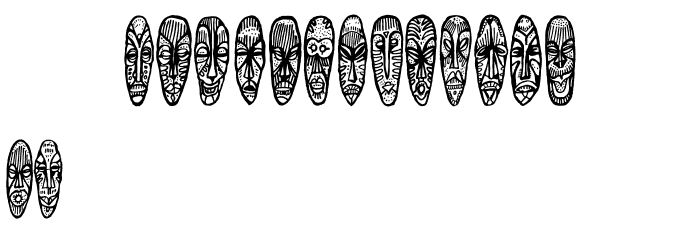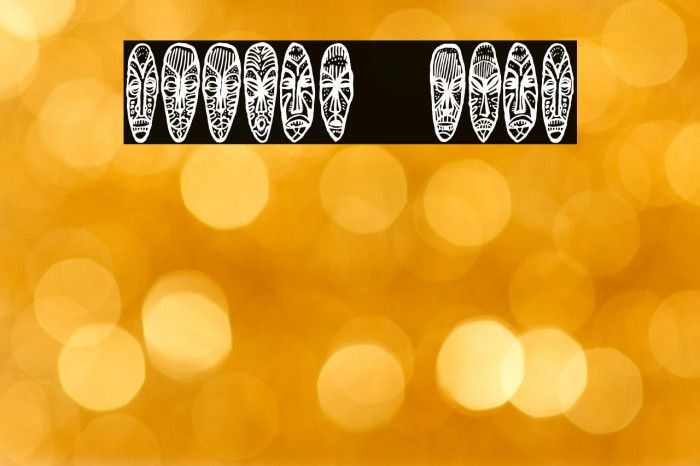
Abbild Regular Font
This font is a highly decorative and artistic representation, featuring intricate tribal mask designs for each character. Each letter is uniquely crafted with detailed patterns, giving it a distinct and cultural aesthetic. The characters are bold and visually striking, making them stand out with their elaborate designs. The font exudes a sense of mystery and tradition, reminiscent of ancient tribal art. The use of black and white contrast enhances the intricate details, making each character a piece of art in itself. This font is not suitable for body text but rather for decorative purposes where a strong visual impact is desired.
A decorative font featuring intricate tribal mask designs for each character.
- Font: Abbild Regular
- Proposed Projects: Ideal for cultural event posters, artistic projects, or any design requiring a tribal or ethnic theme.
- Use Case: Logos, Posters, Artistic Projects